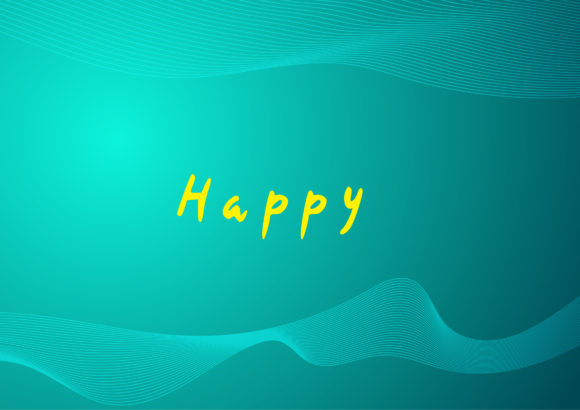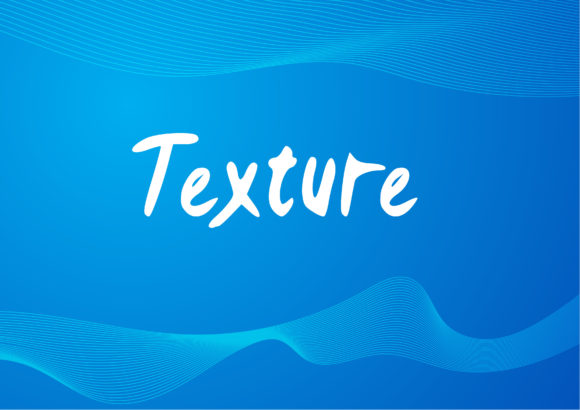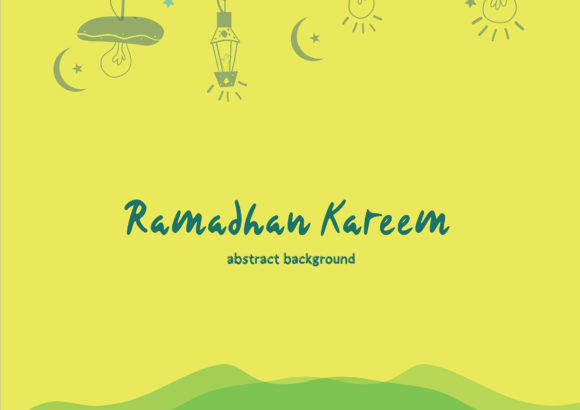
About Kolonjono Font
“Kolonjono Font” is a vibrant and contemporary handwritten typeface that has been meticulously designed to bring a playful and modern touch to your creative projects. With its unique style and energetic appearance, this font offers a versatile choice for a wide array of design applications. Whether you’re working on logo design, social media graphics, movie titles, book covers, short or long texts, or even incorporating it as secondary text alongside sans or serif fonts, “Kolonjono Font” is a powerful tool that can elevate your visual communication.
The font’s distinctive characters and lively curves add a sense of dynamism and personality to your designs. Its well-balanced combination of handwritten aesthetics and modern flair creates a balanced and captivating visual impact. The font’s versatility is one of its key strengths, enabling you to seamlessly integrate it into various projects across different industries.
Whether you’re aiming for a youthful and energetic vibe or a contemporary and approachable feel, “Kolonjono Font” provides a wealth of creative possibilities. Its PUA encoding ensures easy access to a wide range of glyphs and swashes, allowing you to customize and enhance your designs with ease. Overall, “Kolonjono Font” is a go-to choice for designers seeking a fresh and lively typeface to bring their ideas to life in a modern and engaging way.